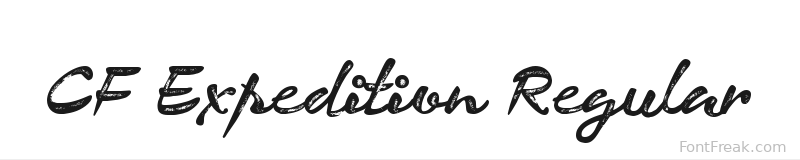
CF Expedition Regular
About CF Expedition Regular
CF Expedition Regular is a captivating handwritten script font designed by Cloutierfontes, perfect for those looking to add a personal touch to their projects. This font falls into the script category, characterized by its fluid, cursive style that exudes elegance and creativity. The strokes exhibit a moderate weight with subtle variations in contrast, giving it a lively yet polished appearance. The spacing is well-balanced, ensuring readability while enhancing its artistic flair, making it suitable for various design applications.
This unique typeface shines in several specific use cases. It is ideal for wedding invitations, where its romantic and whimsical qualities can create a heartfelt atmosphere. Additionally, CF Expedition Regular is an excellent choice for greeting cards, adding a warm and personal touch to messages. Restaurant menus will also benefit from this font's charm, making the dining experience feel more inviting and unique. Furthermore, it can elevate branding materials for small businesses, especially in creative industries like handmade crafts or artisanal goods, where a personal brand identity is crucial.
The target audience for CF Expedition Regular includes graphic designers, small business owners, and content creators who seek to make their work stand out. This font's distinctive style appeals to those who want to convey a sense of creativity and individuality in their designs.
What sets CF Expedition Regular apart is its ability to blend elegance with a casual flair, making it versatile for various applications. Whether used in print or digital formats, this font brings a unique personality to any project. For those interested, the CF Expedition Regular font free download is an opportunity to explore this charming typeface in your own creative endeavors.